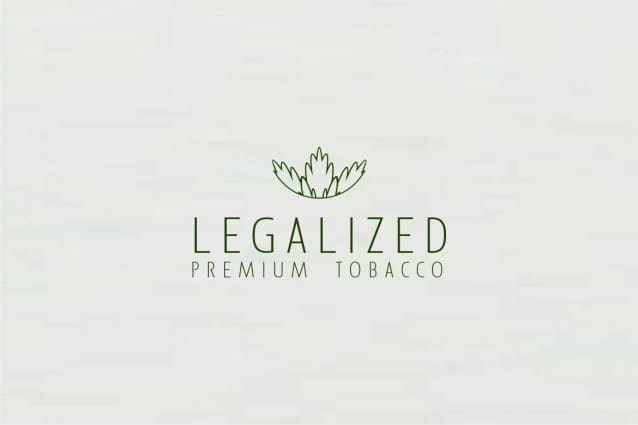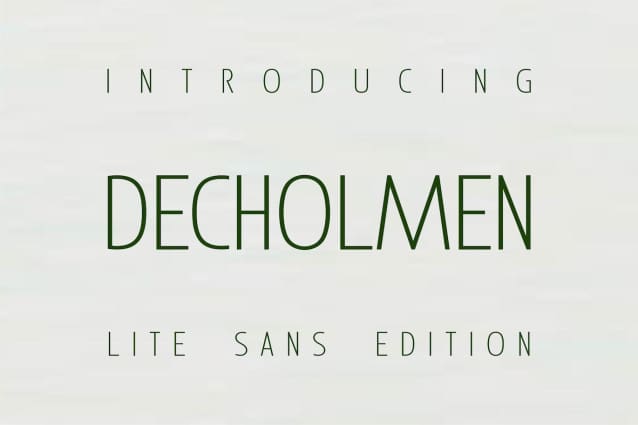
Decholmen Font
Decholmen Font is a lite edition sans serif font suitable for product descriptions, or anything sleek. It is light and of good quality.
This font is suitable for use on small box packaging labels such as wooden match packaging, cigarettes, soap, and anything that uses small packaging.